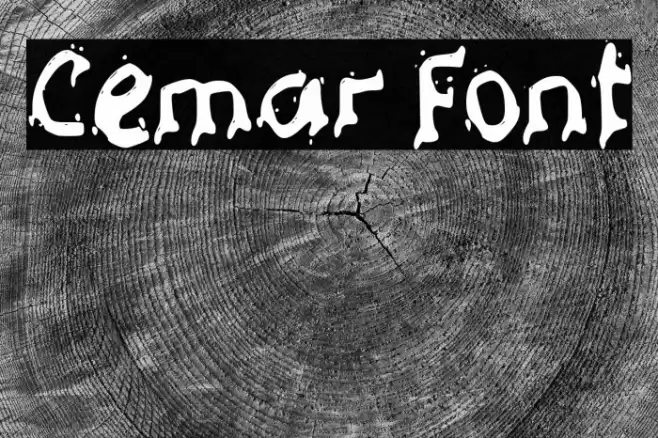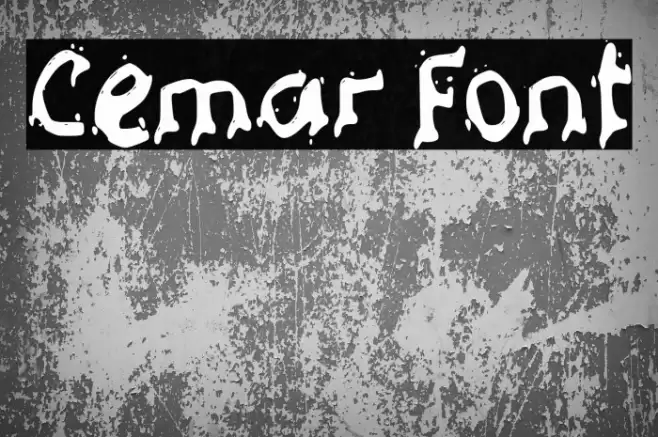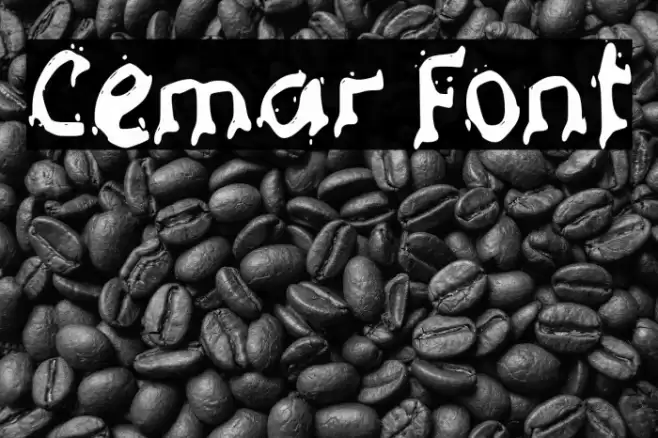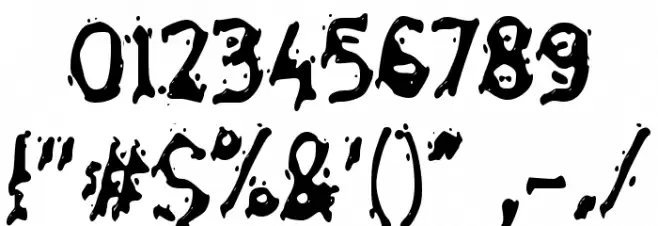
Cemar Font
Cemar Description
This font features a unique, dripping effect that gives it a playful and slightly eerie appearance. The characters are bold and irregular, with uneven edges that mimic the look of liquid or paint dripping down. The uppercase and lowercase letters maintain a consistent style, with exaggerated curves and points that add to the font's dynamic feel. Numbers and special characters are equally stylized, ensuring a cohesive look across all text. This font is ideal for creative projects that require a standout, artistic touch.
A bold, dripping font with a playful and eerie style from Uncategorized fonts.
- Proposed Projects: Perfect for Halloween-themed designs, artistic posters, edgy branding, and creative social media graphics.